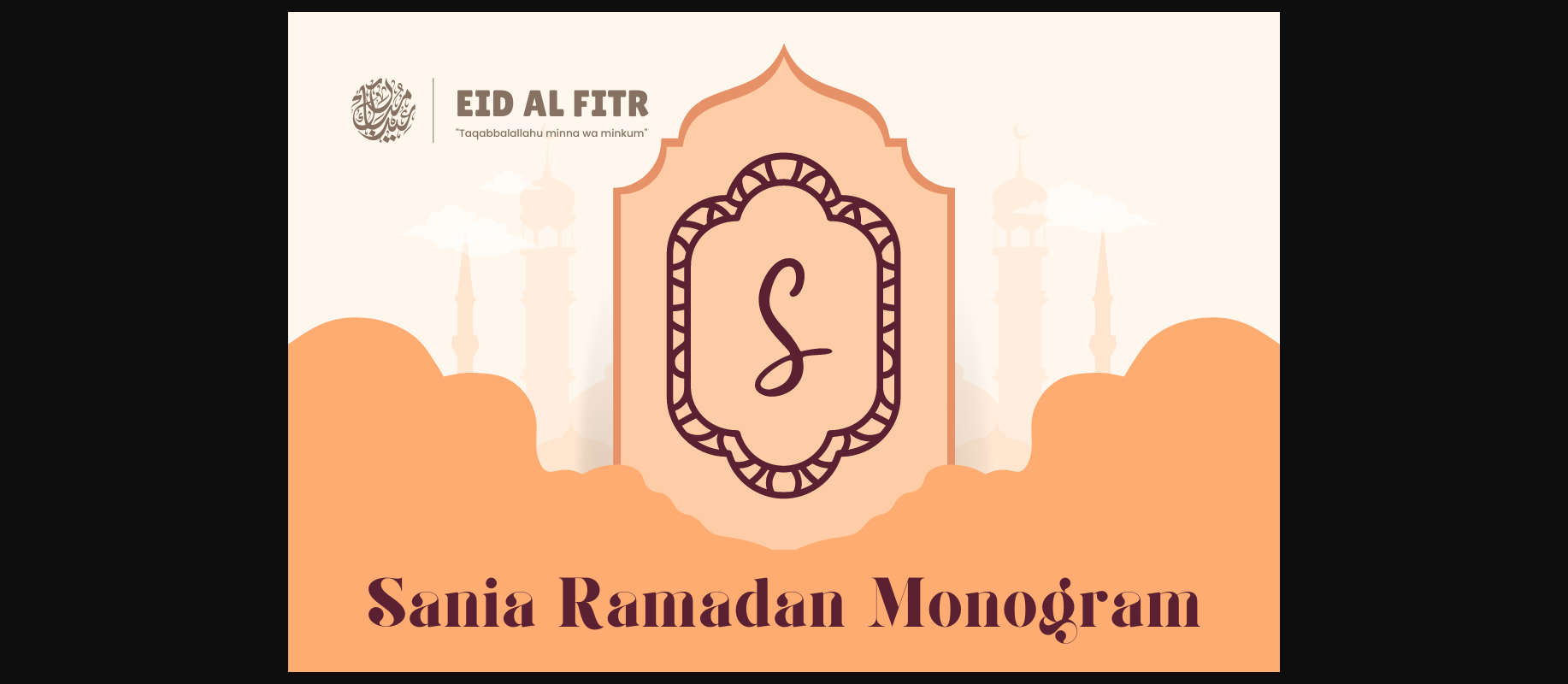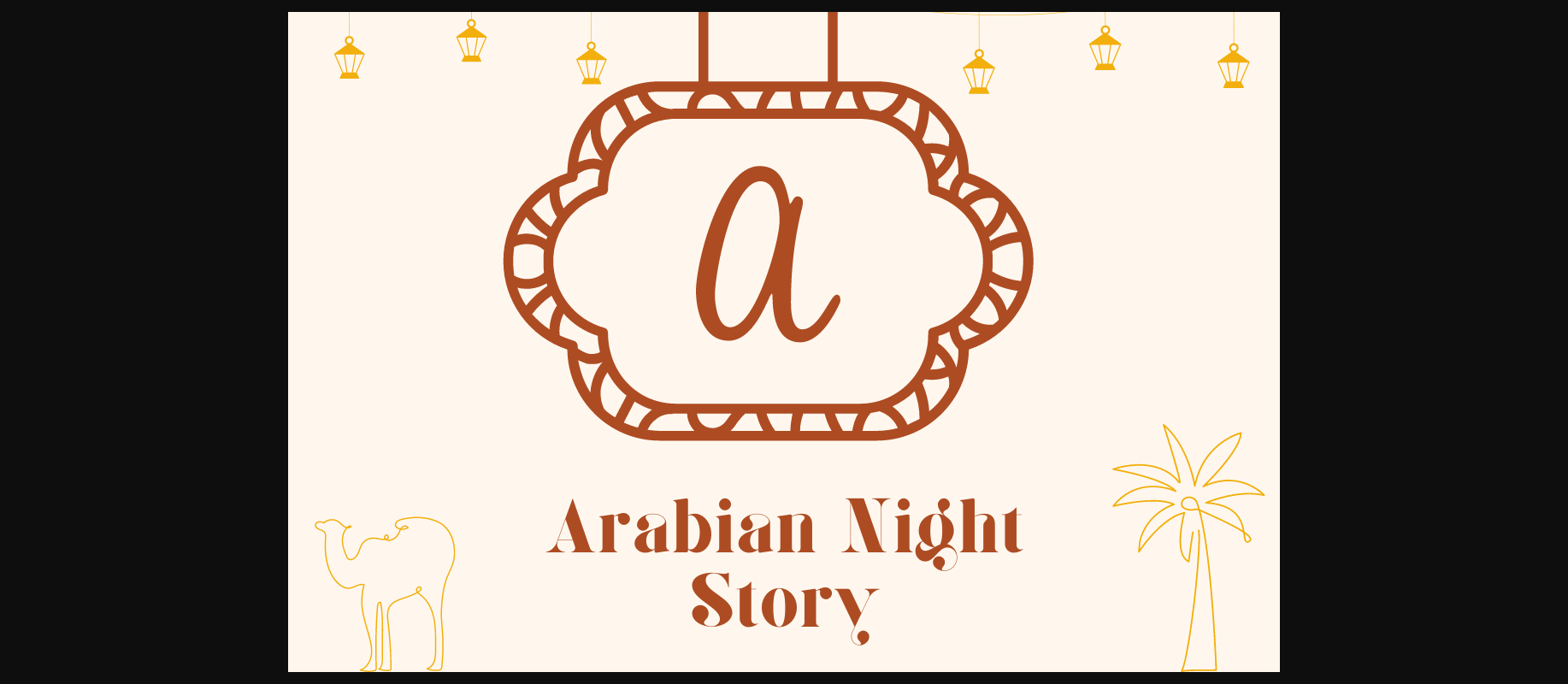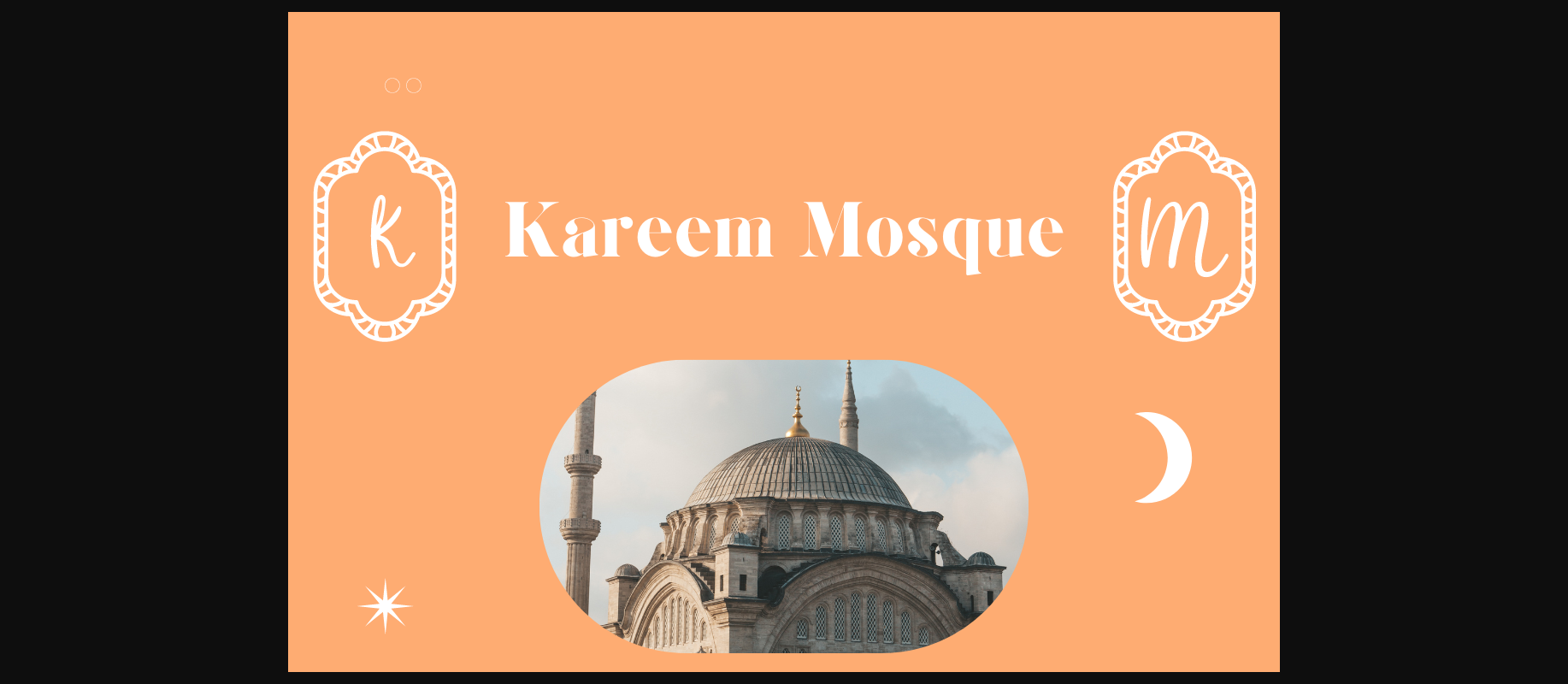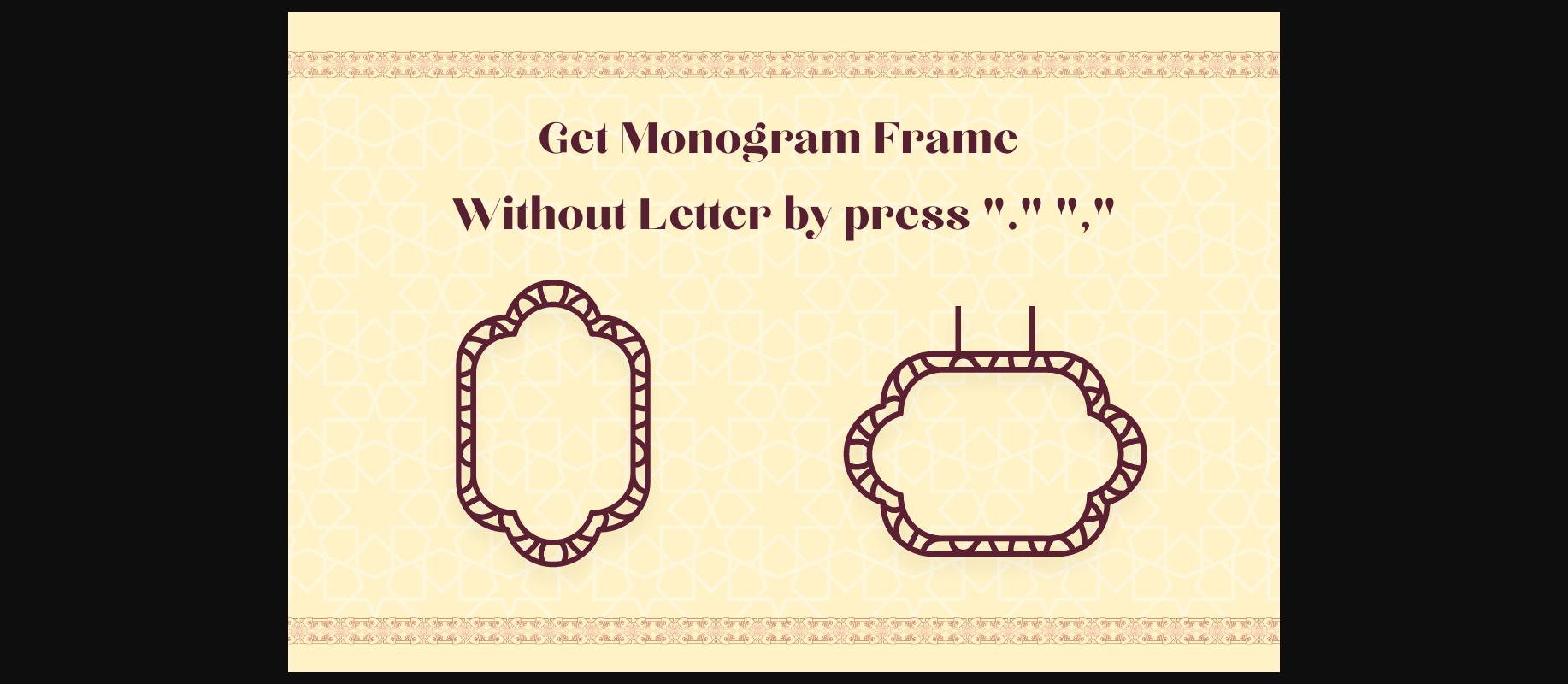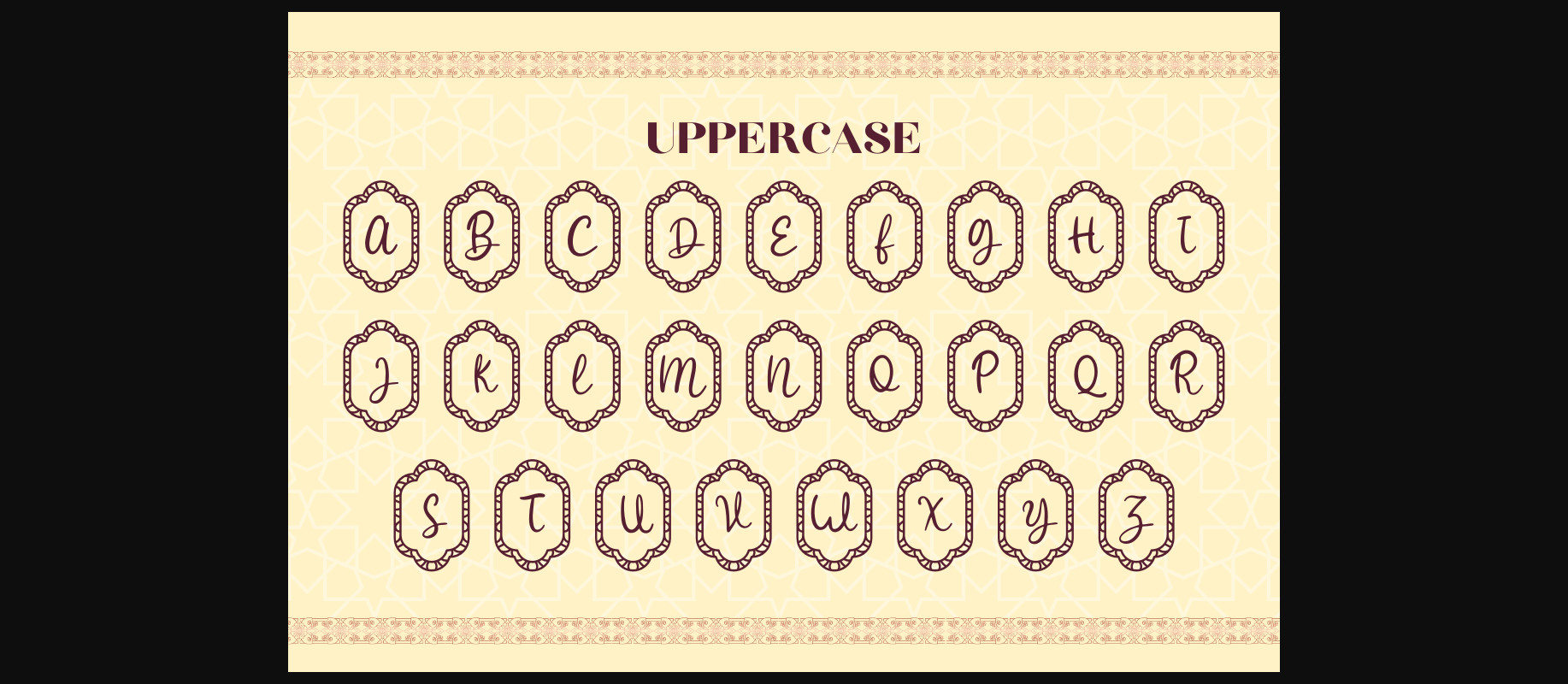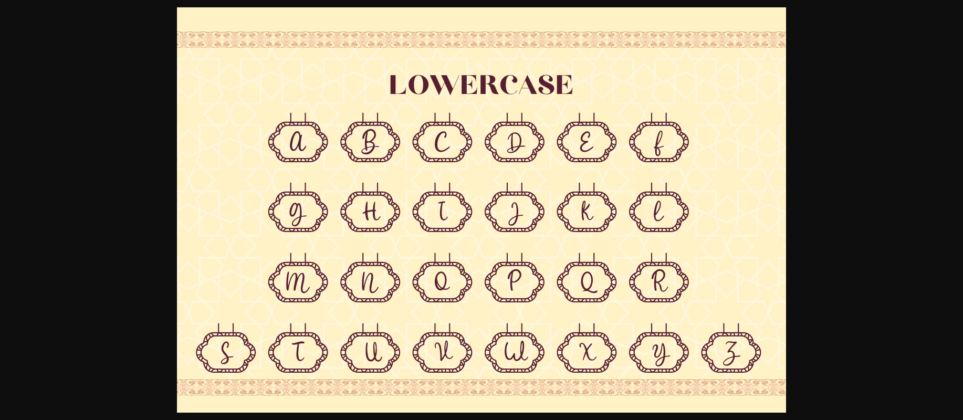
Sania Ramadan Monogram Font
About Sania Ramadan Monogram Font
Sania Ramadan Monogram font is a typeface that is designed with a Ramadan theme in mind.
Sania Ramadan Monogram font is characterized by its elegant and stylish design, with clean lines and a modern aesthetic. It is suitable for use in a variety of contexts, including invitations, cards, branding materials, and other design projects
Comes in 2 styles. Just simply change between uppercase and lowercase to see the different styles!
Include a frame design without a letter, just click “.” or “,” and change the letter with your style.
– Uppercase (A-Z)
– Lowercase (a-z)
– Number (0-9)